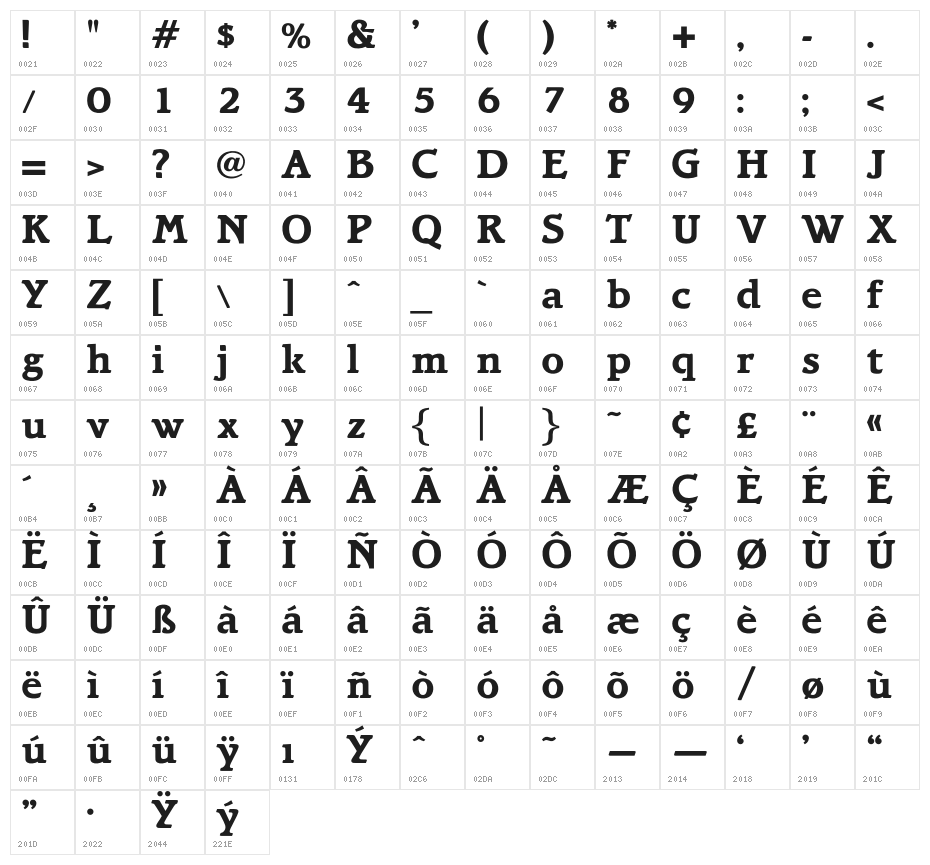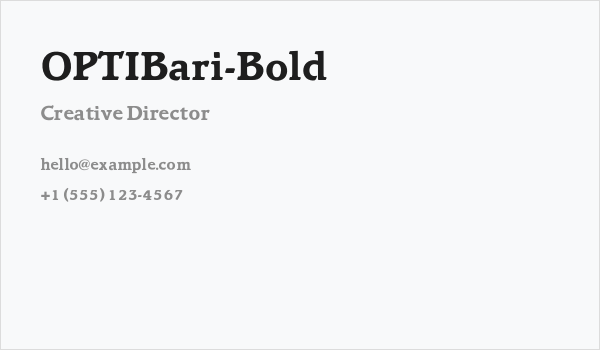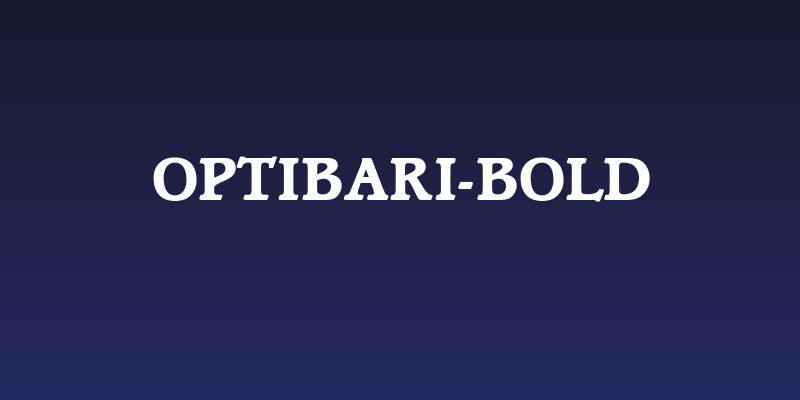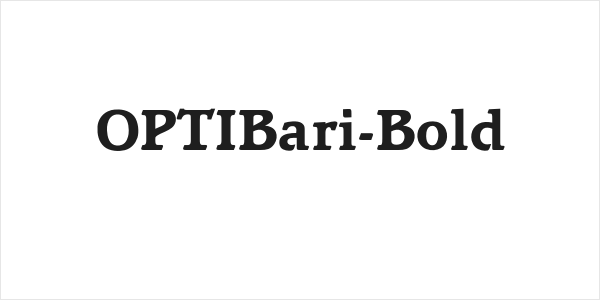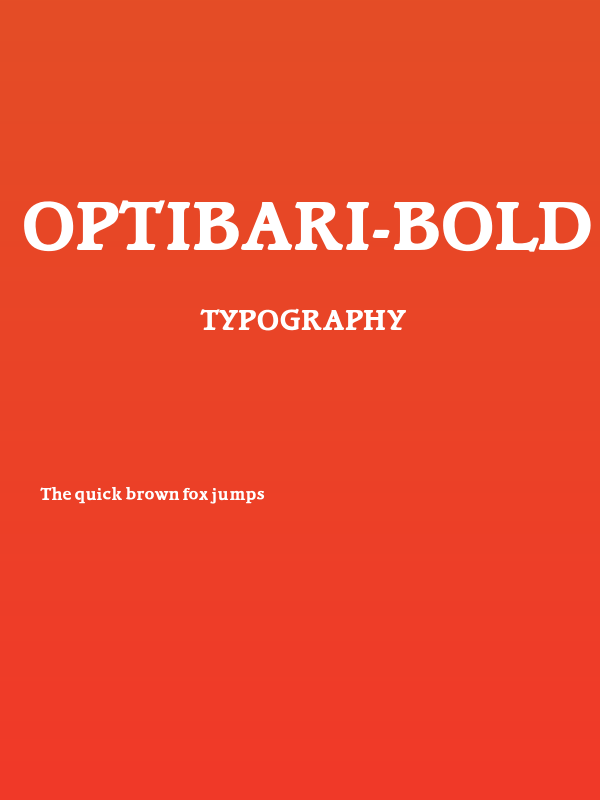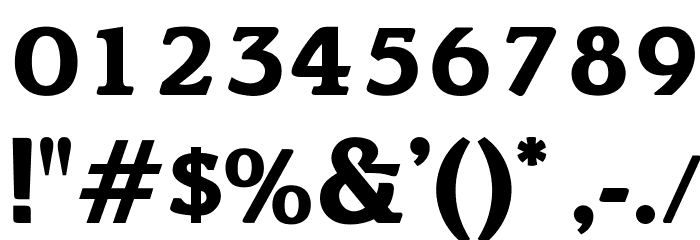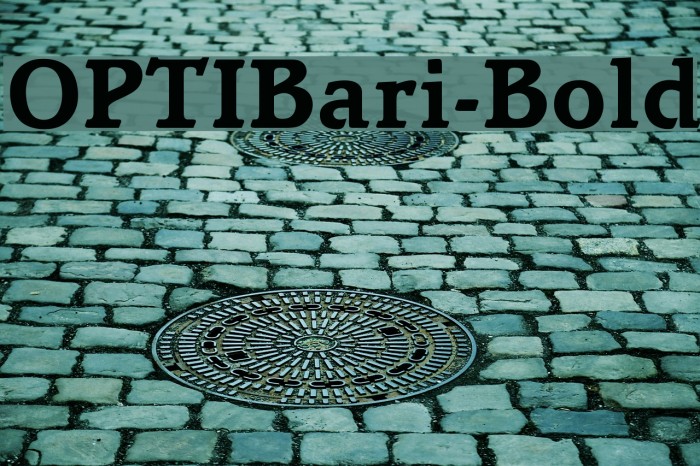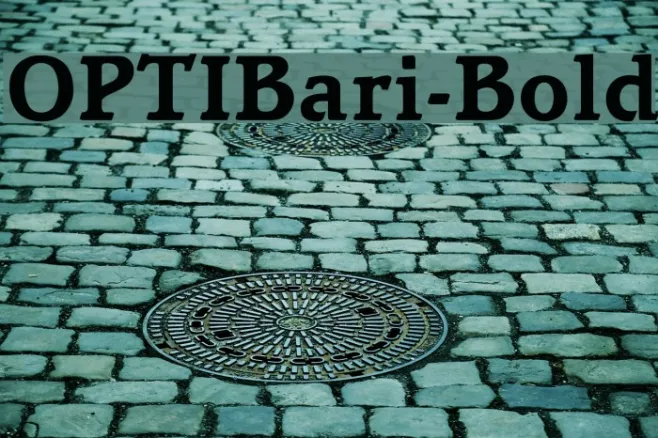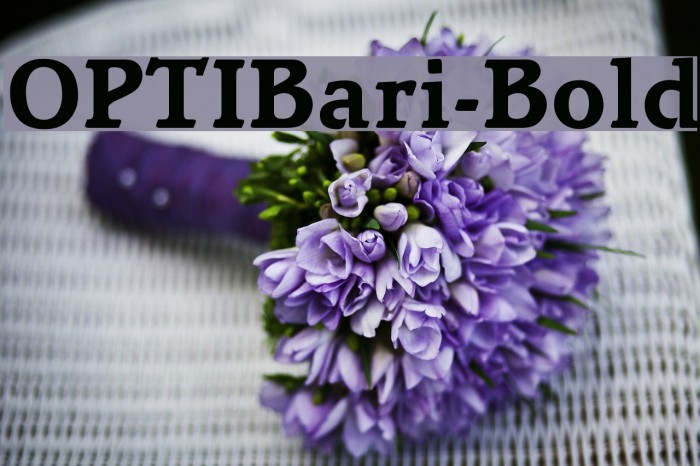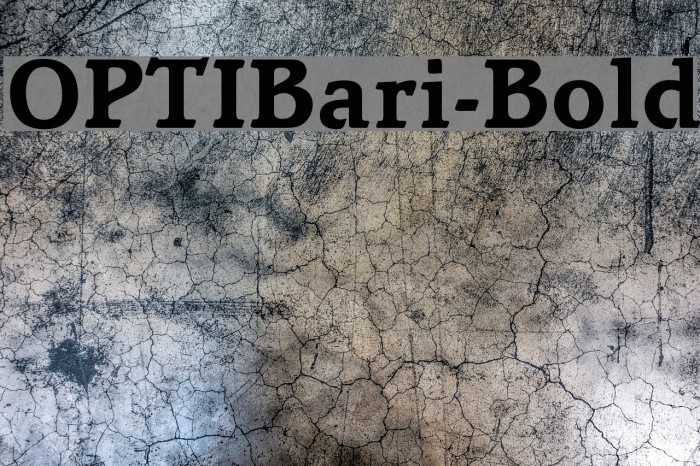
OPTIBari-Bold Font
OPTIBari-Bold Description
This font exhibits a bold and robust character with strong, thick strokes that convey a sense of authority and confidence. The serifs are pronounced, adding a classic touch to the overall modern aesthetic. The uppercase letters are well-proportioned, while the lowercase letters maintain a consistent height, ensuring readability. The numerals are clear and distinct, making them suitable for various applications. Special characters are designed with the same attention to detail, ensuring they integrate seamlessly with the rest of the typeface.
| Proposed Projects | Ideal for headlines, branding, and editorial design where a strong, authoritative presence is required. |